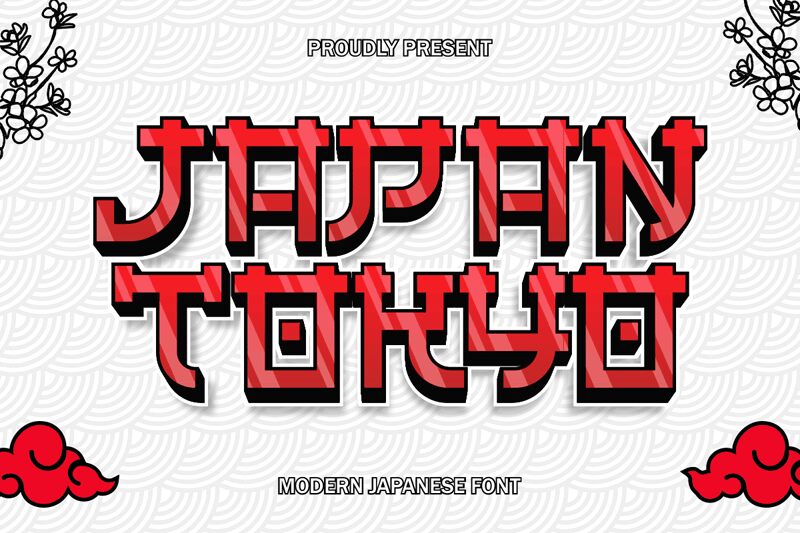
Japan Tokyo font by Kong Font is a modular Japanese-themed display font that beautifully combines modernity with heritage. Each glyph has a futuristic and modular structure, appearing geometric and blocky to give this typeface its retro-futuristic charm. The letter consistency brought by the repetitiveness of the blocks used makes this font exceptionally powerful across its non-standard usage scenarios.
As unusual as it may seem, Japan Tokyo’s uniqueness allows for it to add Asian vibes in headlines, poster designs, movies and video game titles etc. More areas where it can find use include album covers, T-shirts, art prints, product packages (no text-length-friendly economy), branding projects etc.